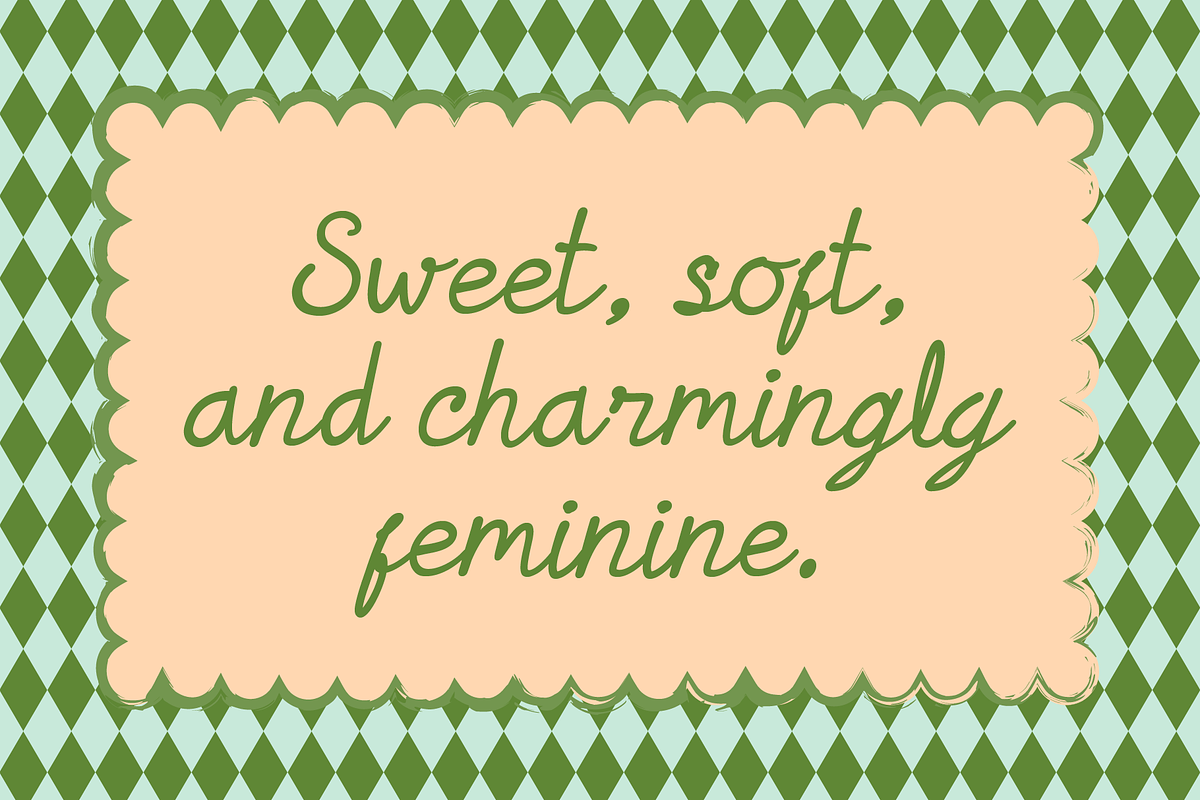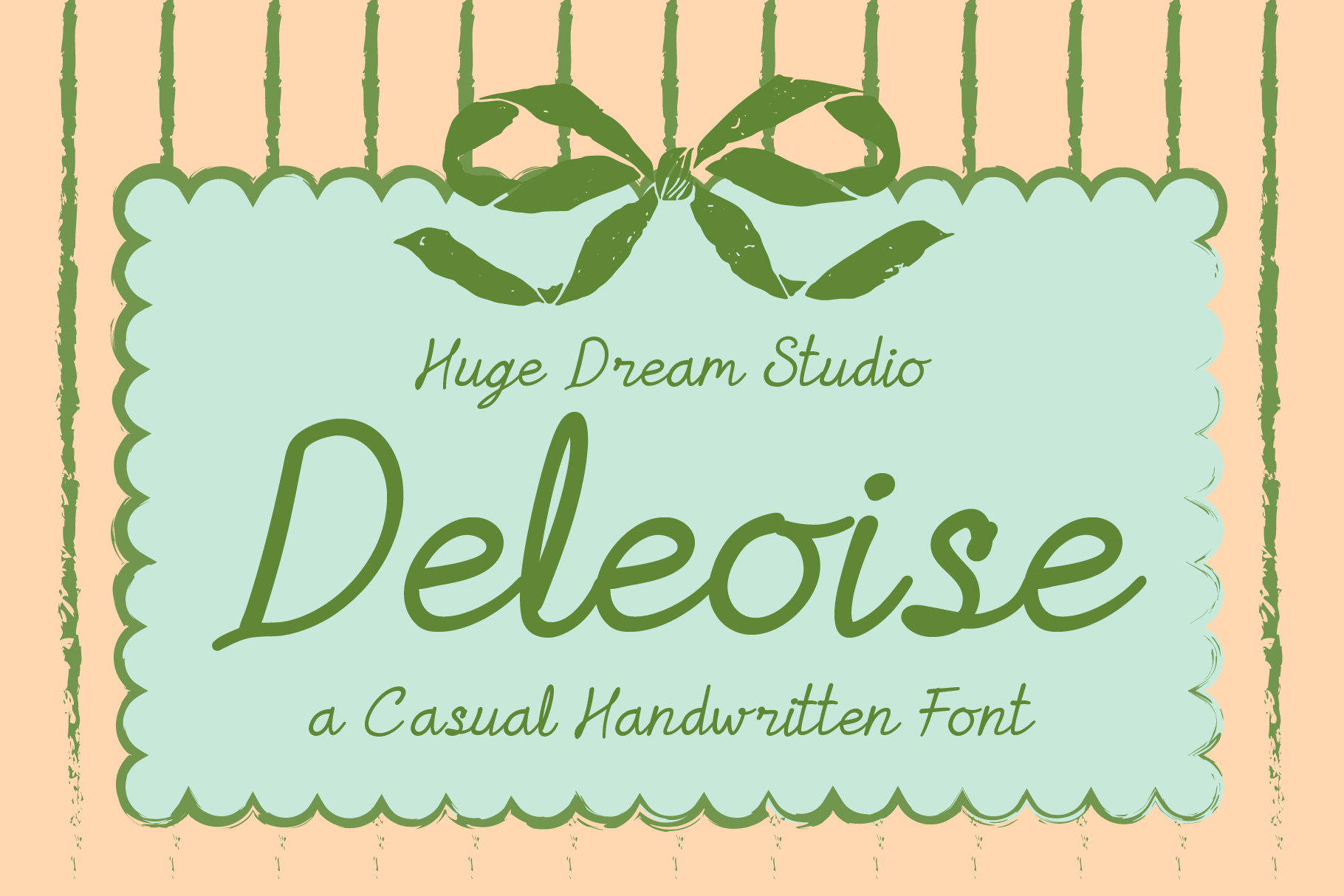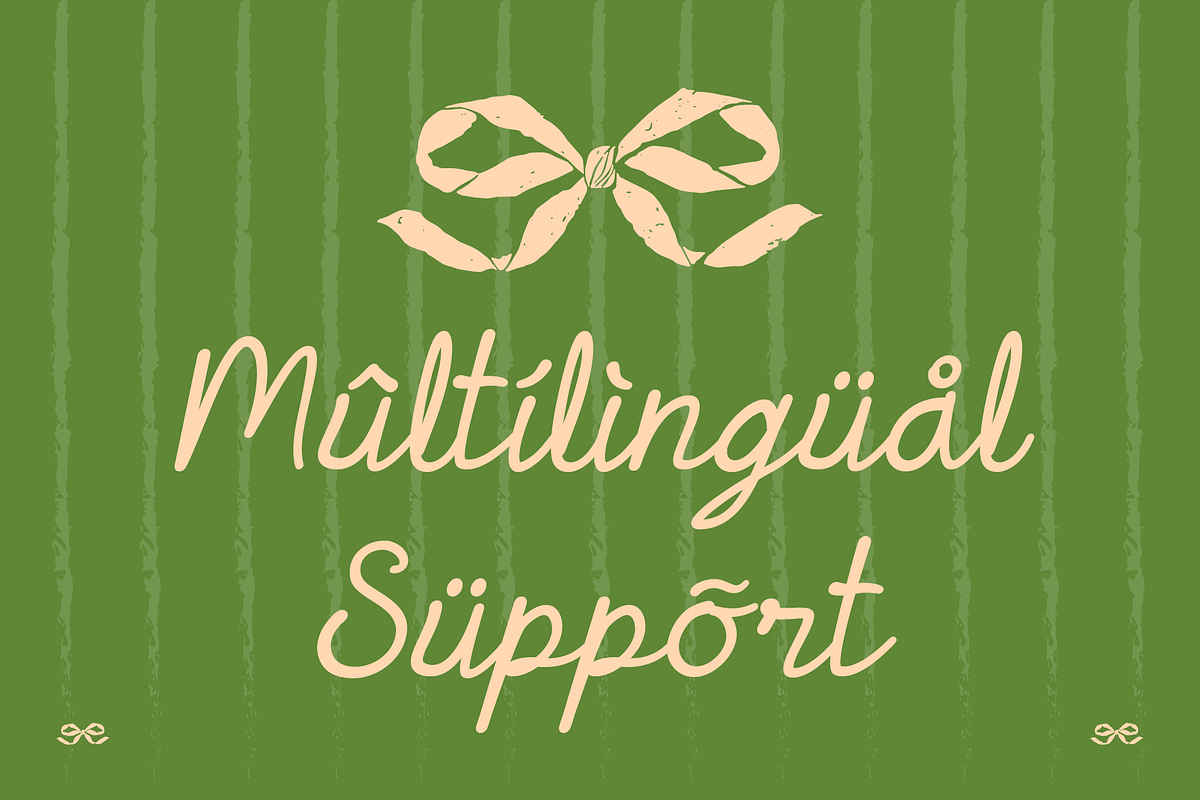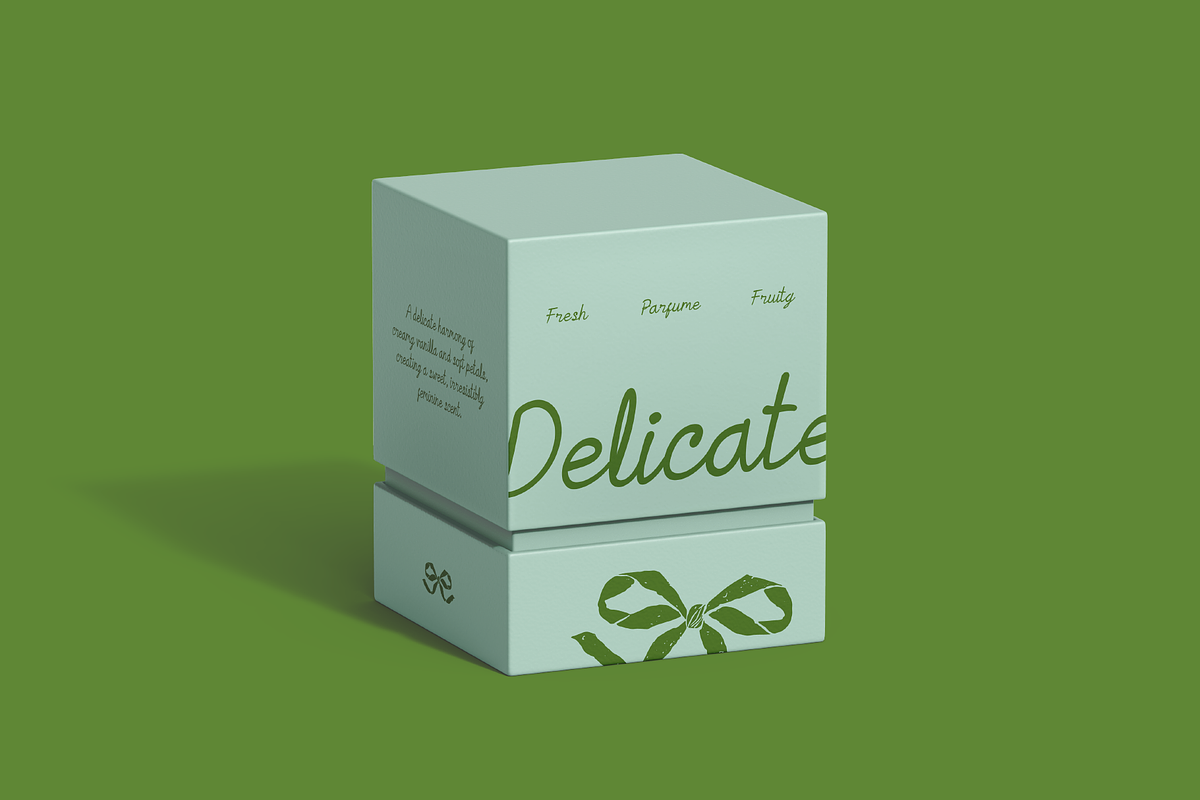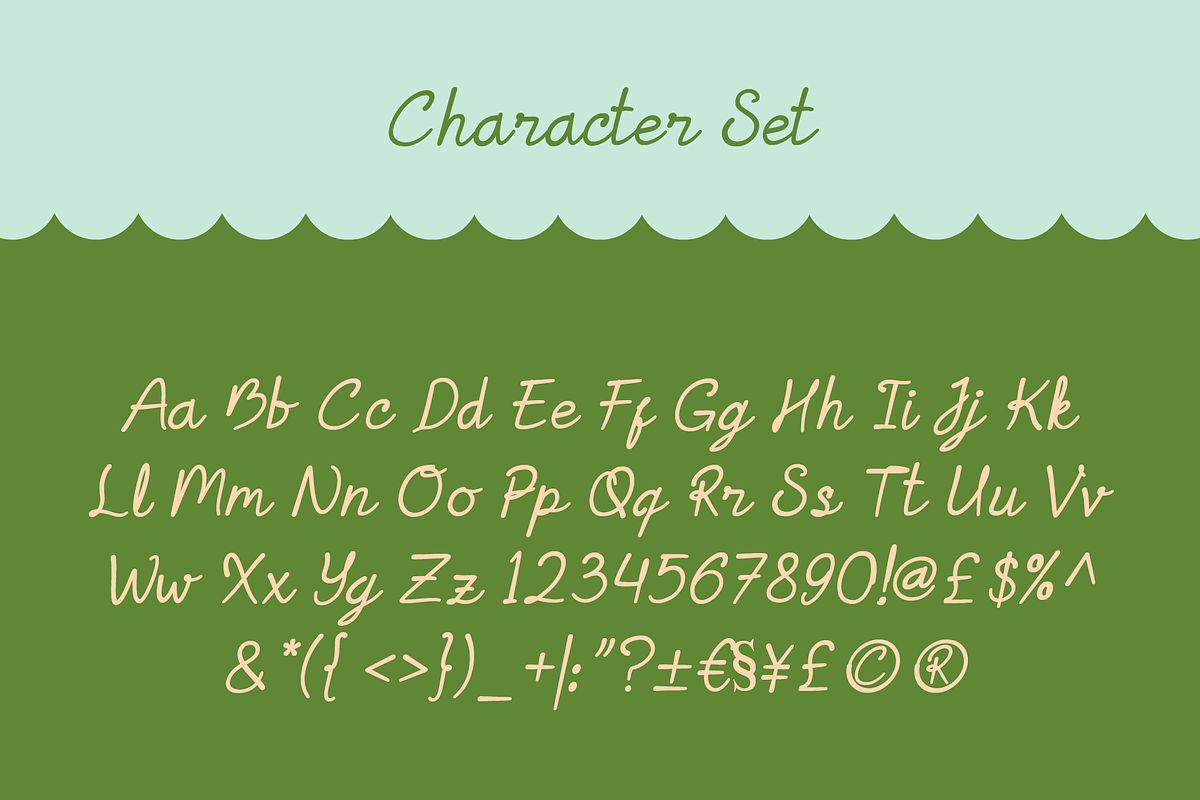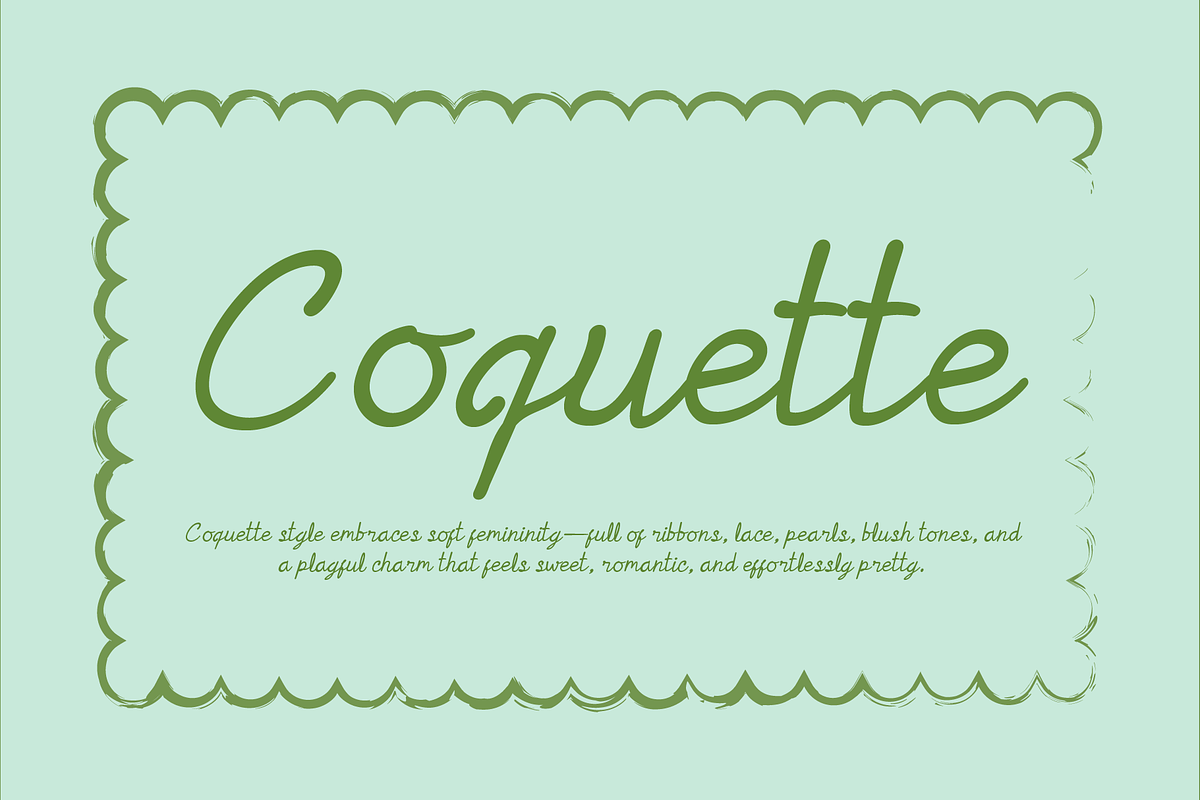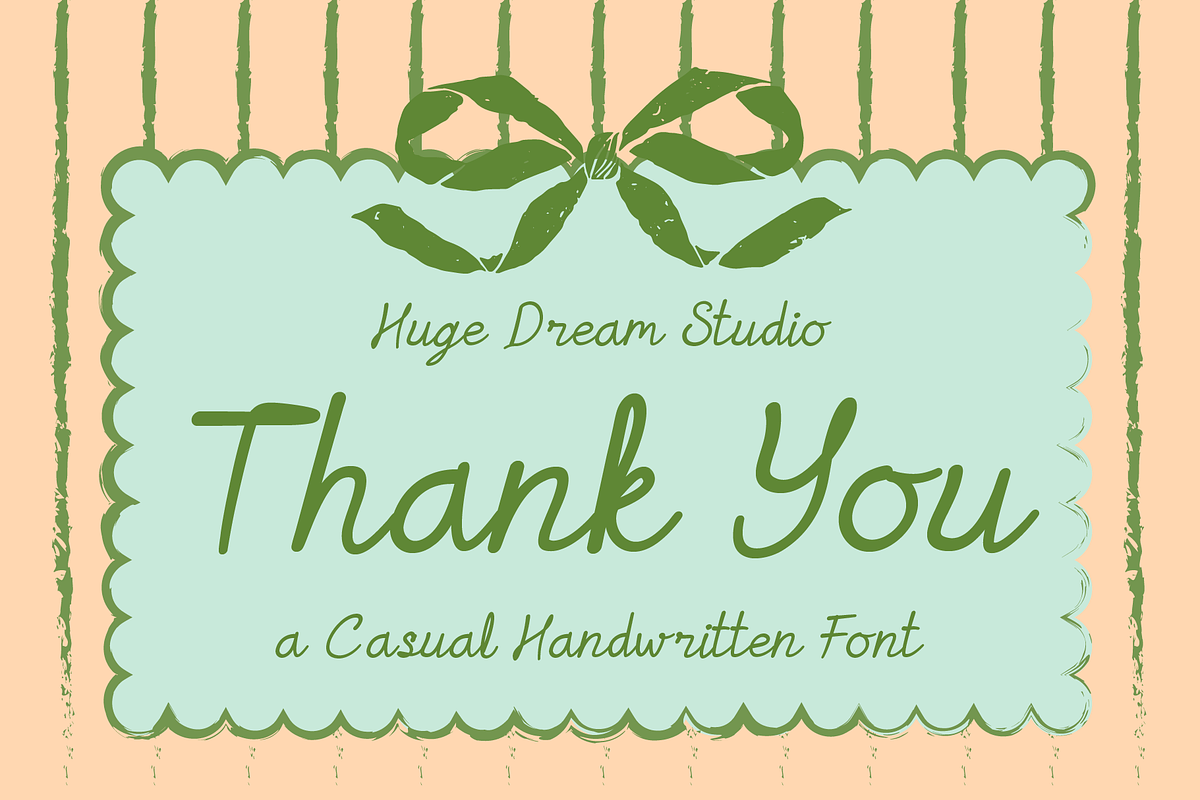
Deleoise – A Casual Handwritten Font
Deleoise – A Casual Handwritten Font is a loose script typeface with a relaxed, free-flowing personality. Crafted with uneven strokes and natural hand-drawn movement, Deleoise feels expressive, personal, and effortlessly authentic—just like real handwriting on paper.
Its casual and airy style makes Deleoise perfect for quotes, journals, branding, packaging, social media posts, greeting cards, and creative lifestyle designs. When you want a font that feels warm, spontaneous, and full of character, Deleoise delivers a charming handwritten touch that keeps your designs friendly and approachable.
Deleoise – A Casual Handwritten Font features:
- Punctuation & Numbers
Elevate and explore the design possibilities with this Loose Script Font!